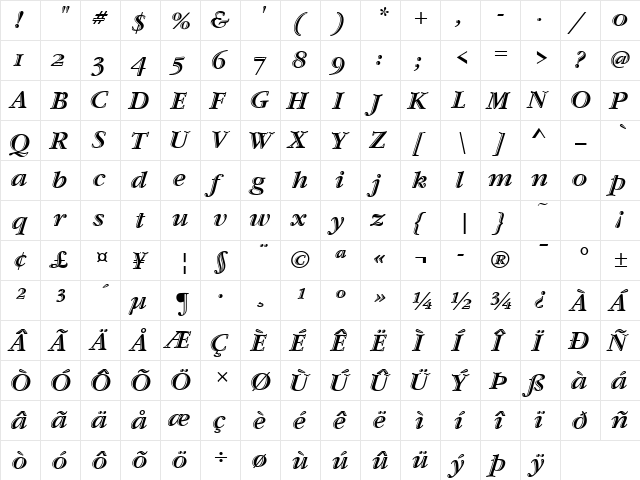
Garamond Htld OS ITC TT Italic
Design Context for Garamond Htld OS ITC TT Typeface
Garamond Htld OS ITC TT takes a measured approach to typography — its balanced proportions and neutral character make it a reliable workhorse for both digital and print work. Its italic angle brings a sense of urgency and motion to the letterforms.
Pro Tip: Try Garamond Htld OS ITC TT for annotation and caption copy alongside an upright companion — the contrast in angle creates a dynamic but ordered typographic system.